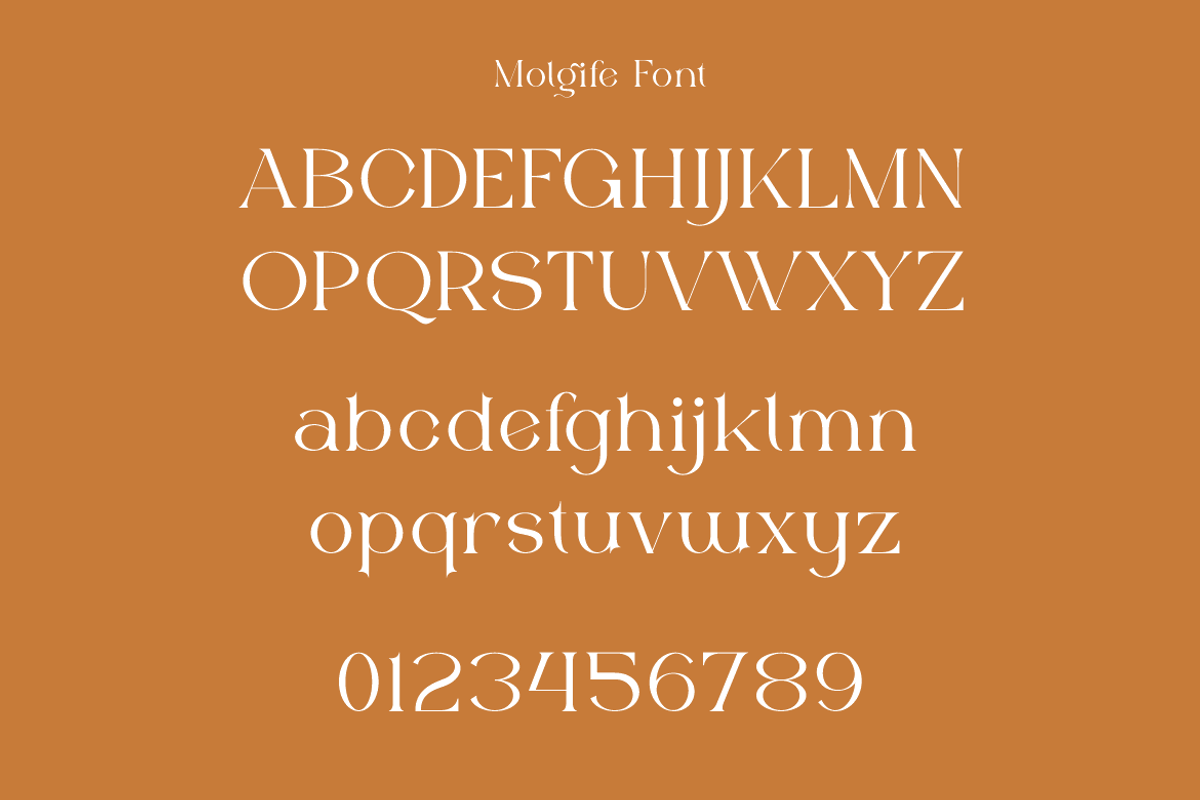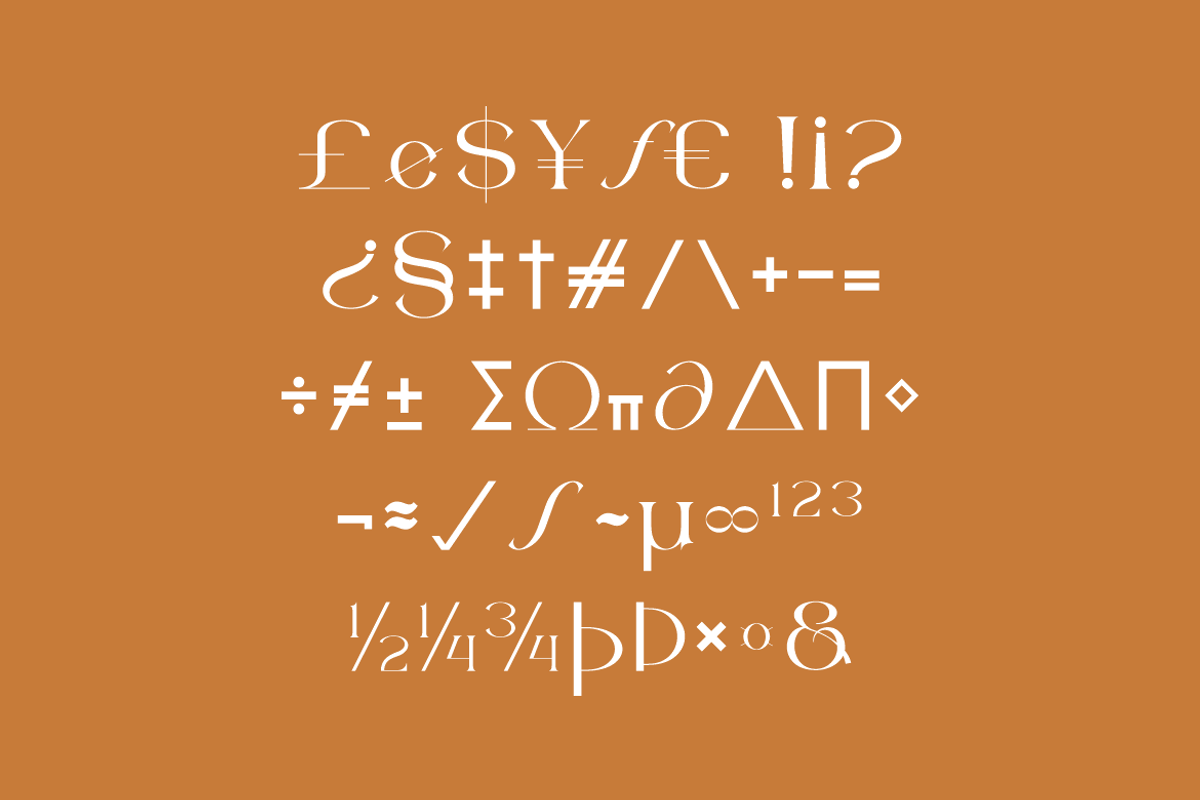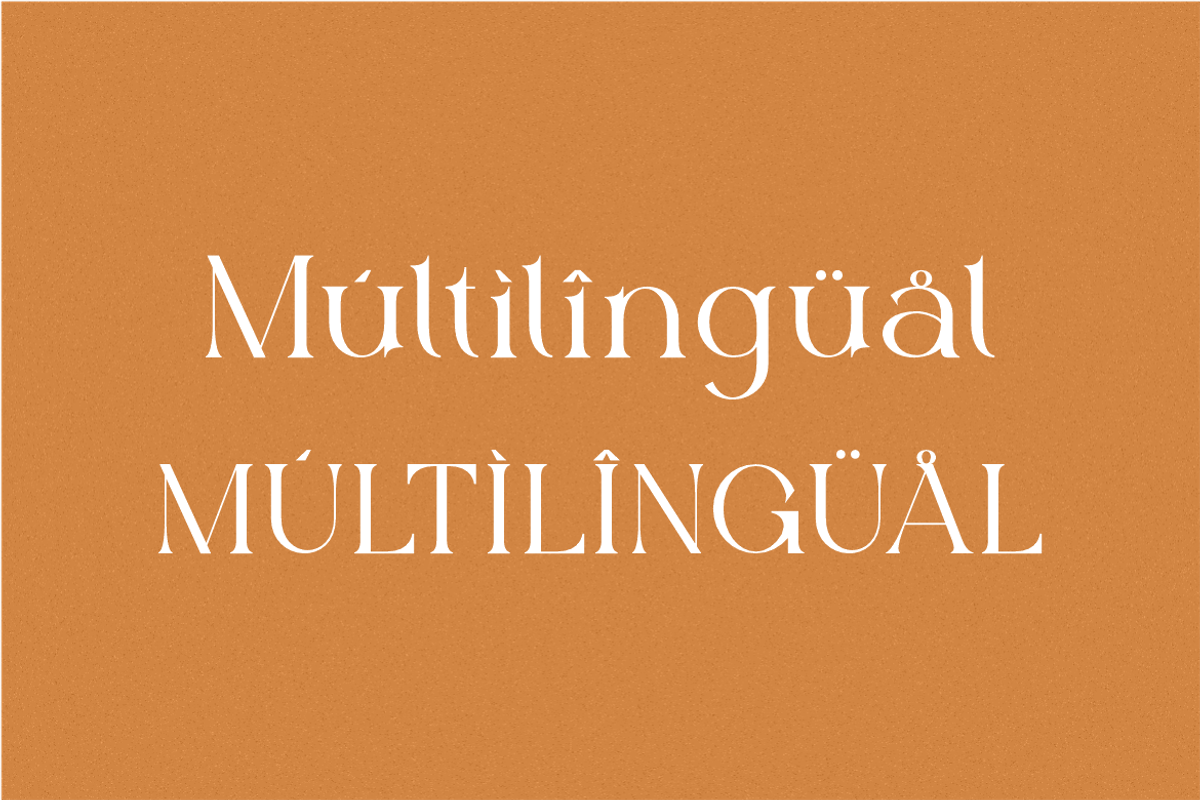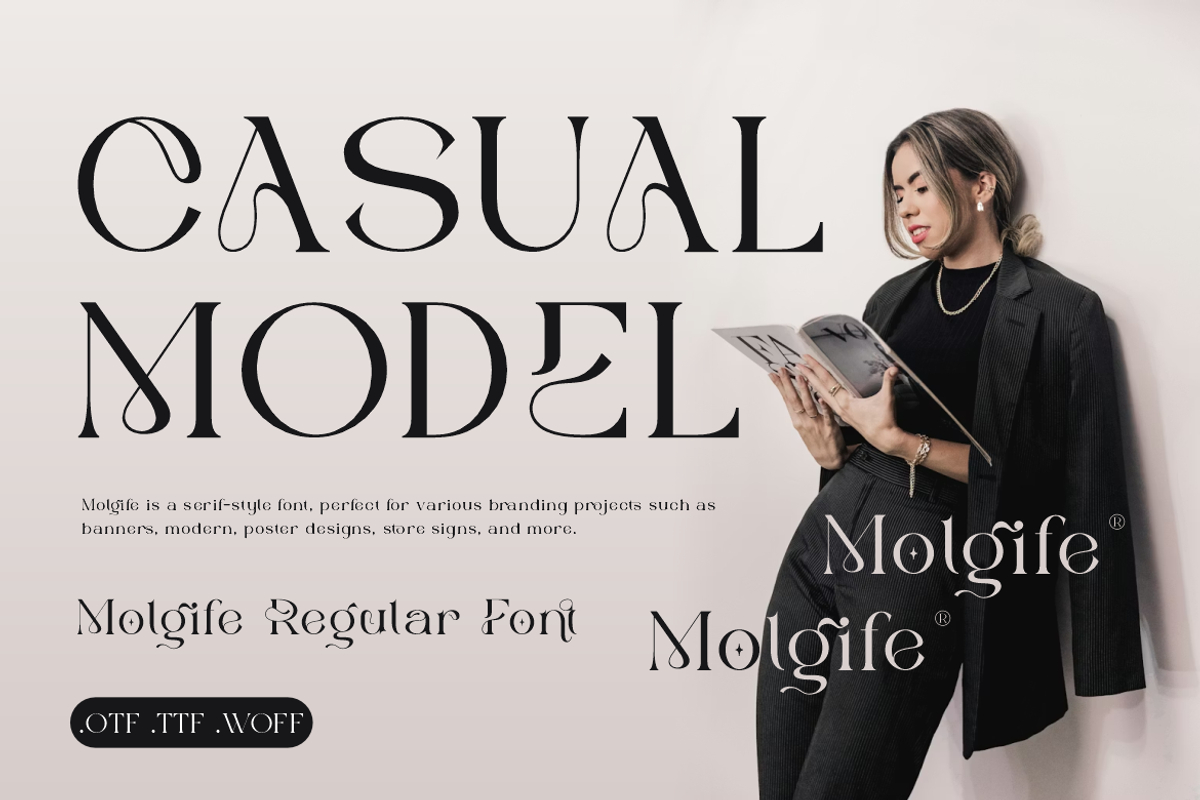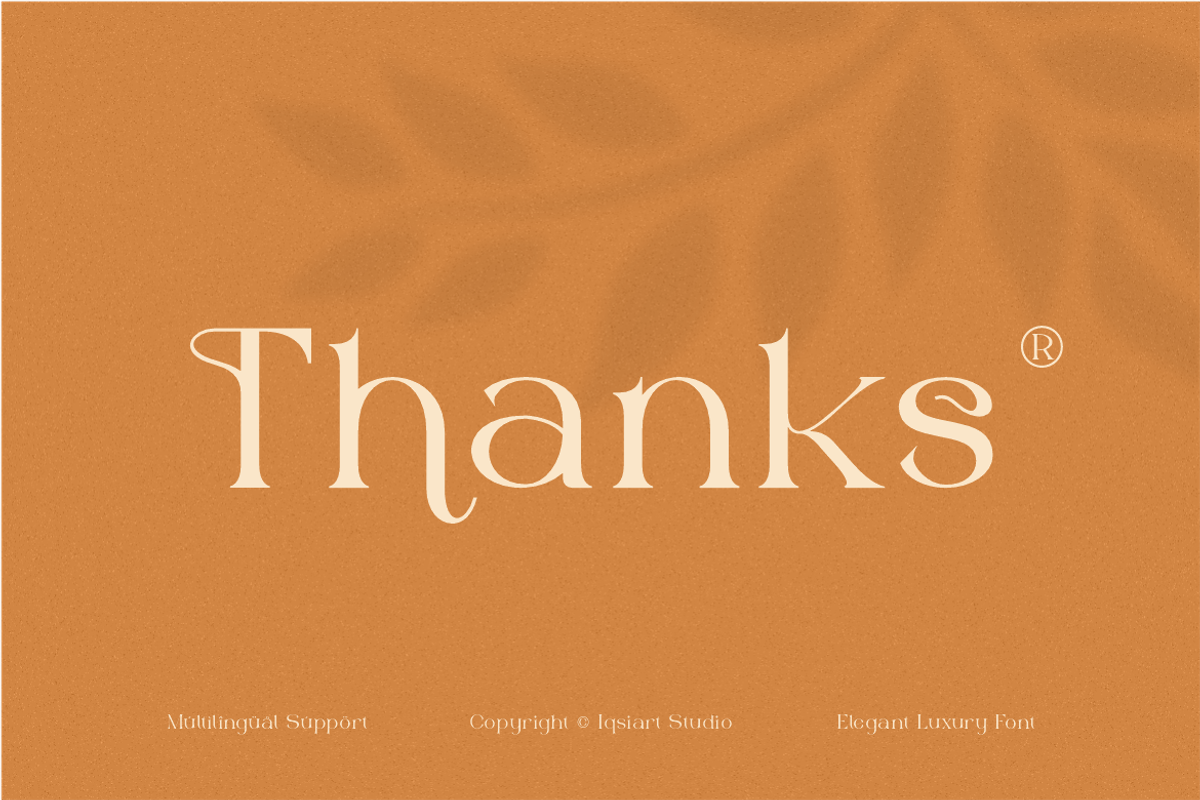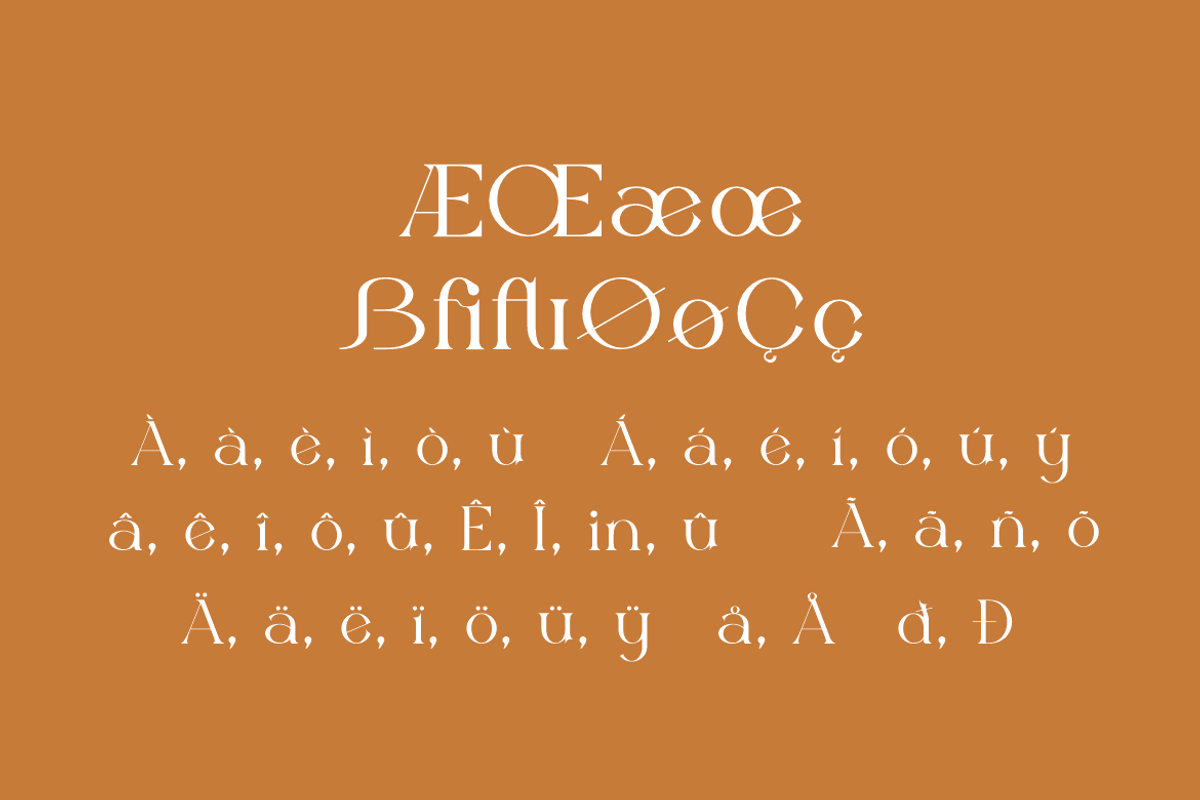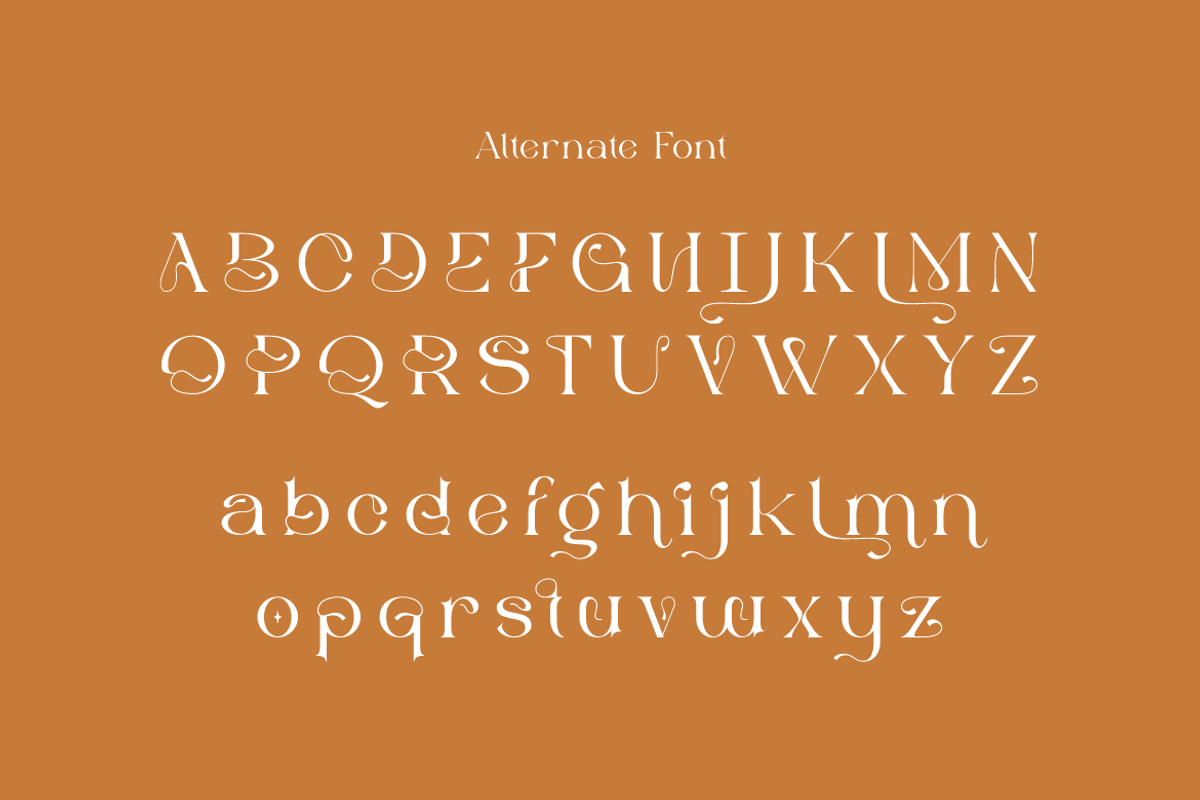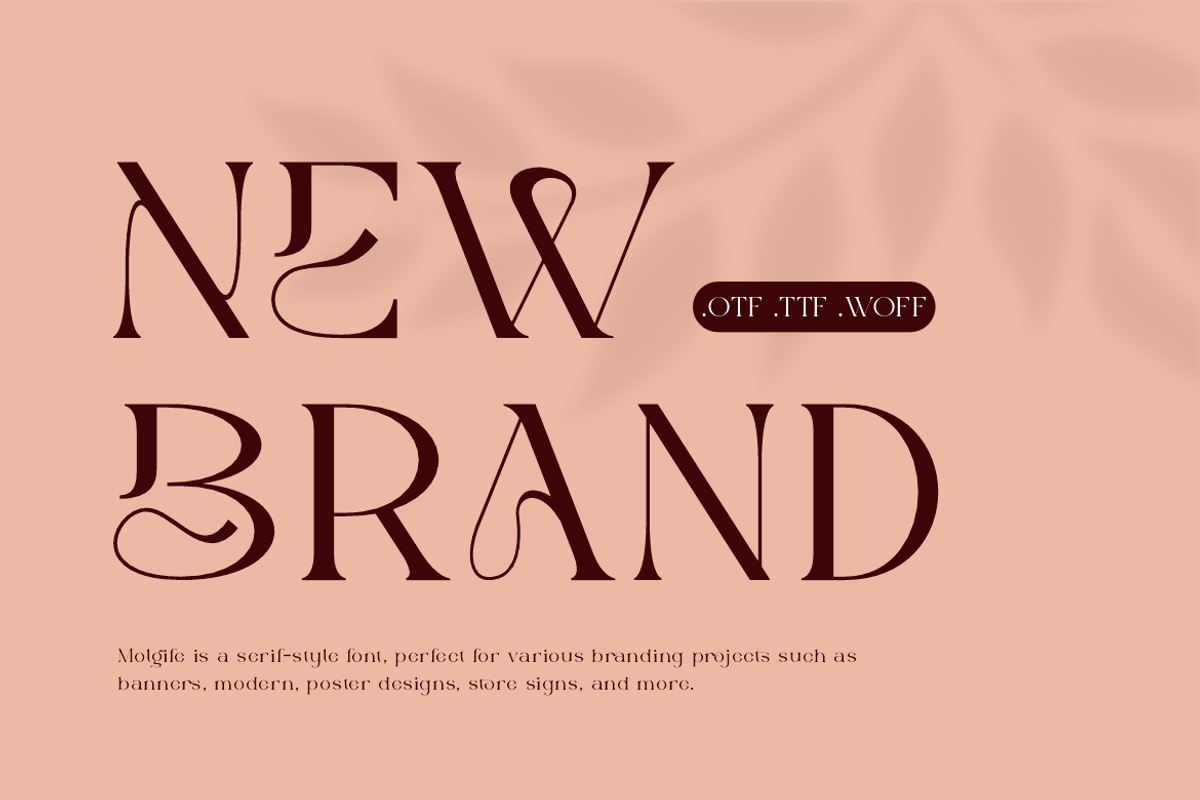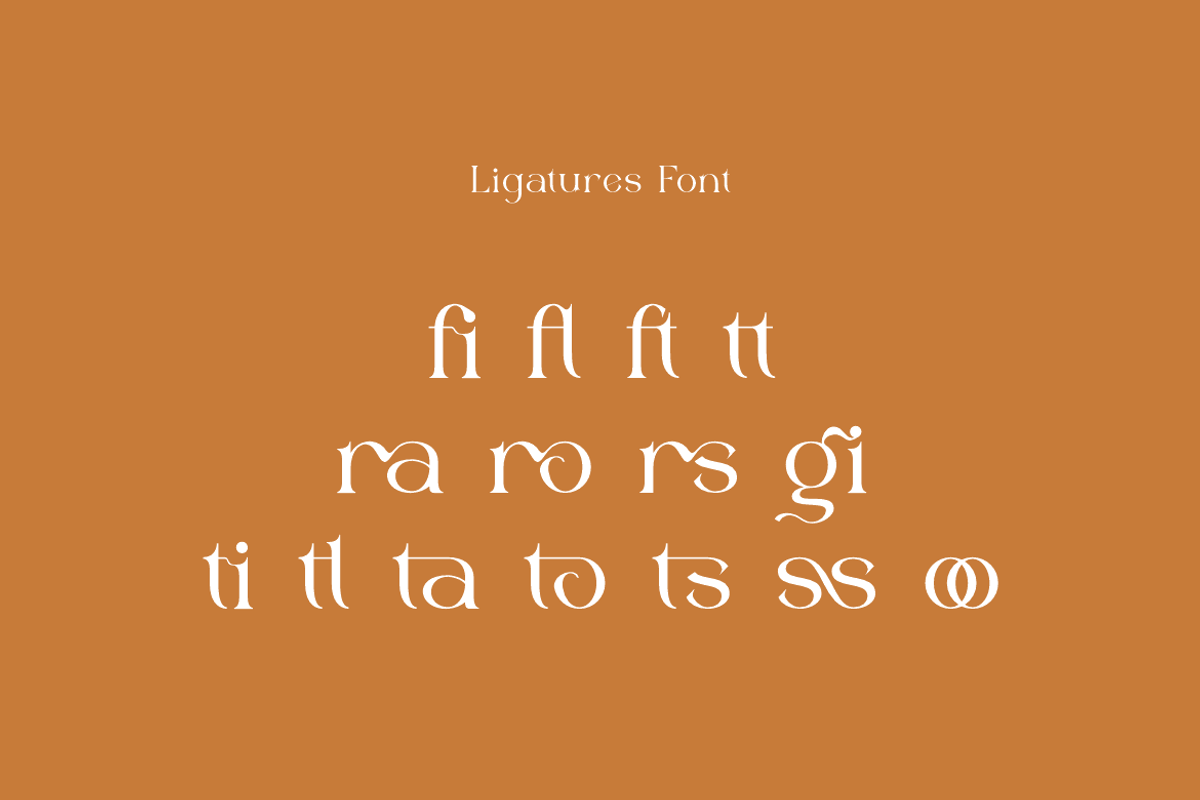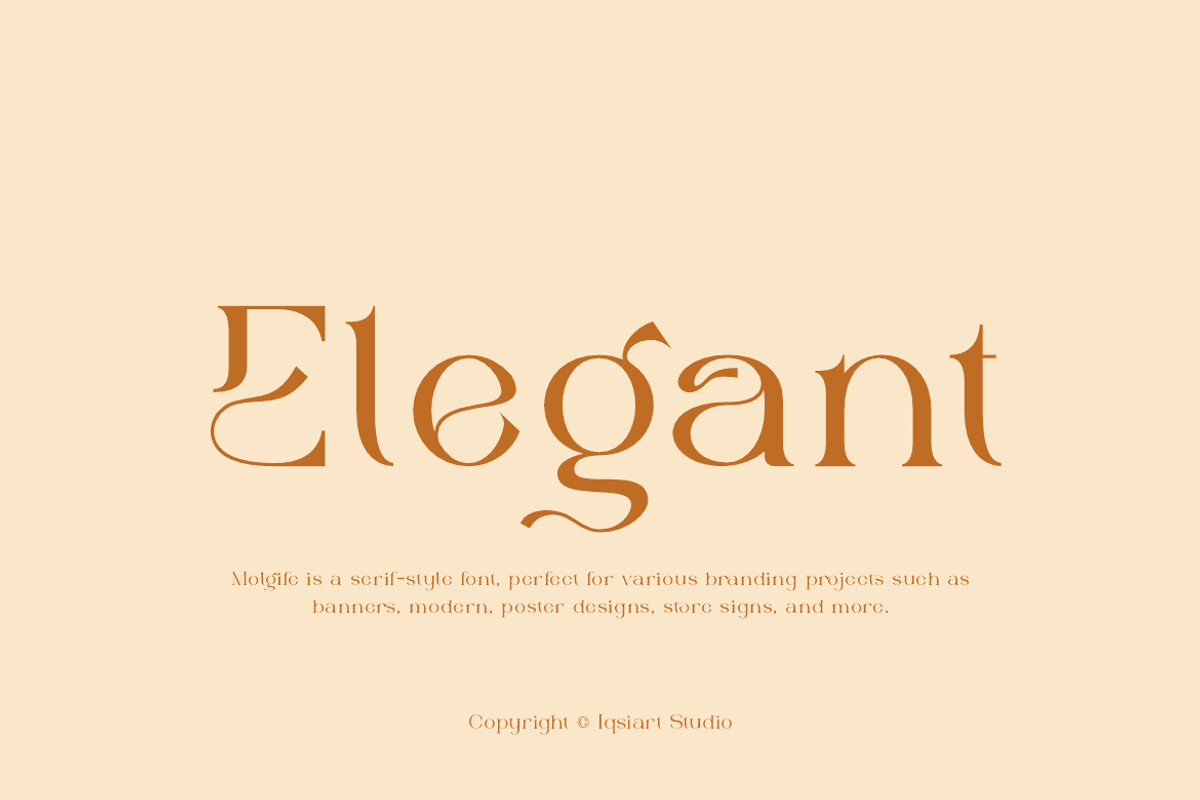
Molgife - Fashion Brand Font
Molgife Font is a serif and authentic display typeface that suits a variety of design needs. We offer a wide range of themes and font styles — visit our profile to explore more and find the perfect style for your project.
Multilingual Font